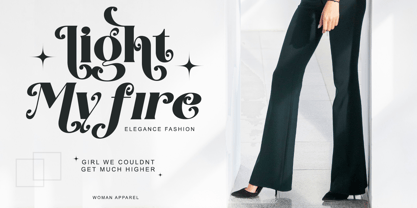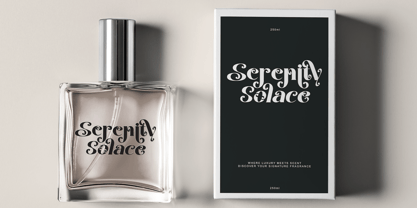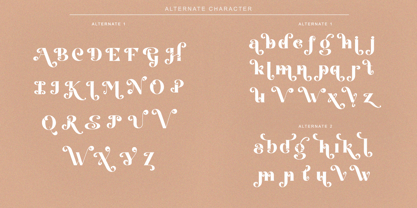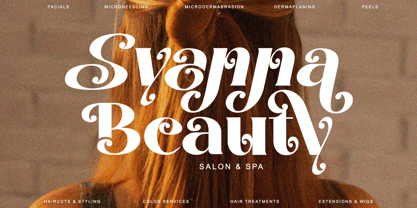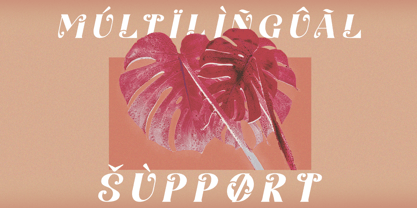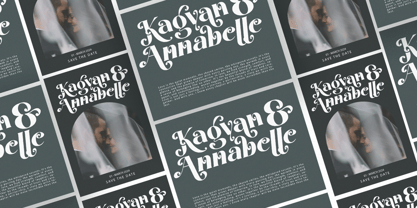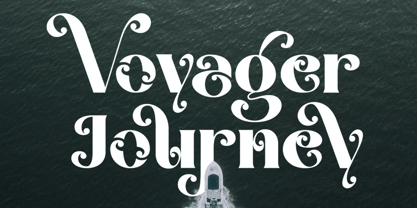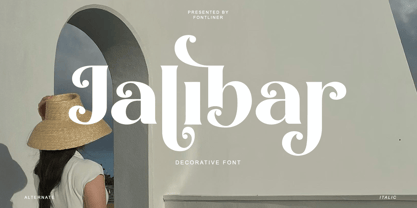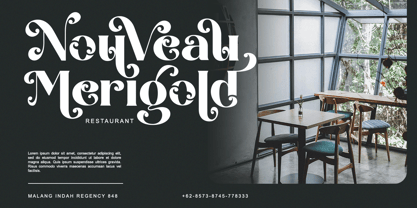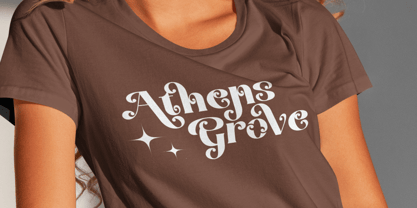
Jalibar
by Font Liner
The Jalibar Font Family was designed by Ghina Luthfiarieska and published by Font Liner. Jalibar contains 2 styles and family package options. More about this family
Jalibar is decorative font with a fancy, playful, unique, and versatile vintage serif family with many alternates that you can combine to get curves and beautiful shapes easily just in seconds. Jalibar with moderate contrast that perfect for branding projects, logo, wedding designs, social media posts, advertisements, product packaging, product designs, label, photography, watermark, invitation, stationery, and any projects, it makes with a high level of legibility.
- 50+ Stylistic Alternates
- Multilingual Support